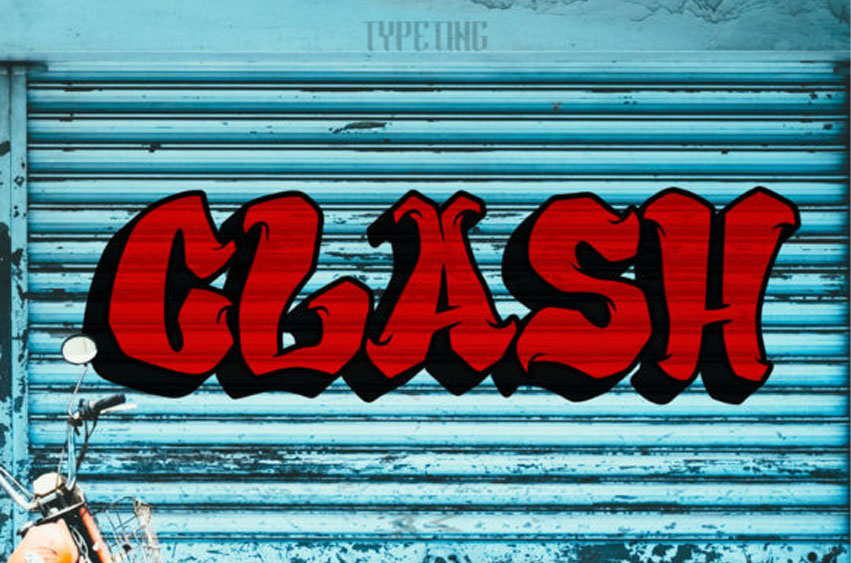
Clash Font is a graffiti-style, cool, and bold display font.
This original look will appeal to a wide range of crafty ideas, from letterheads and titles to stationery.